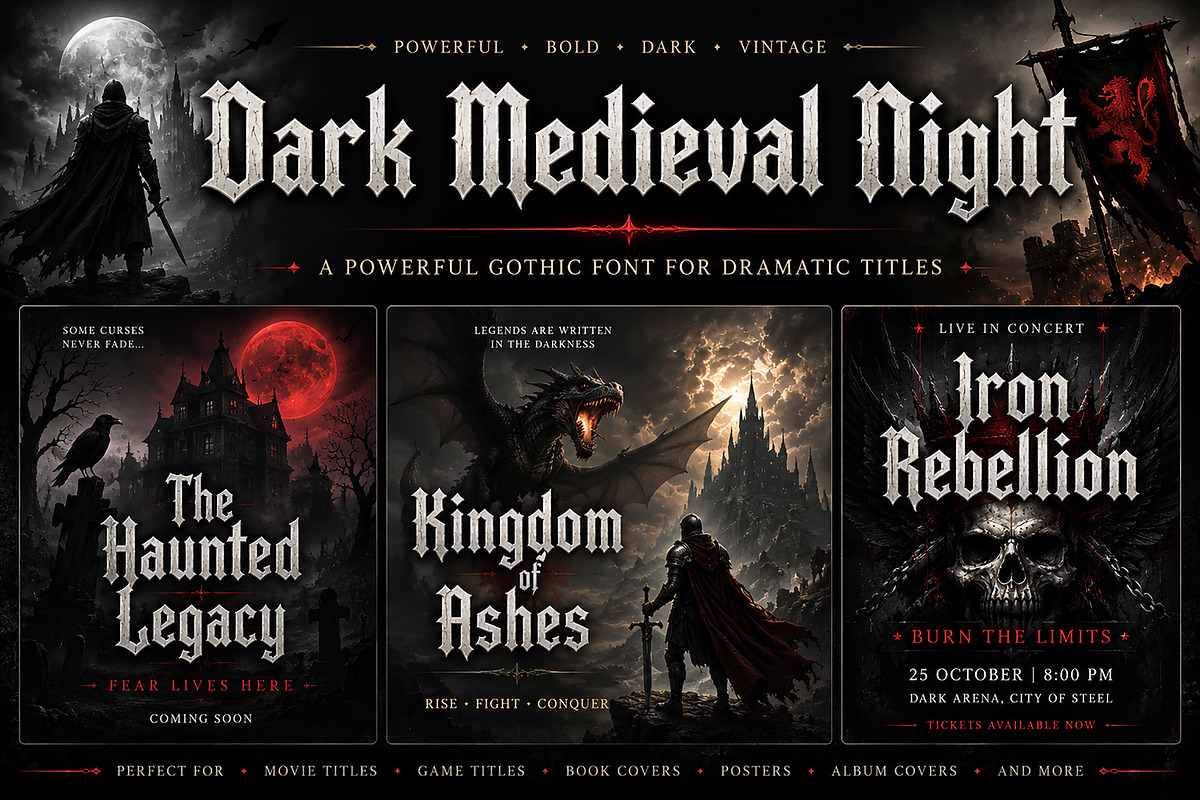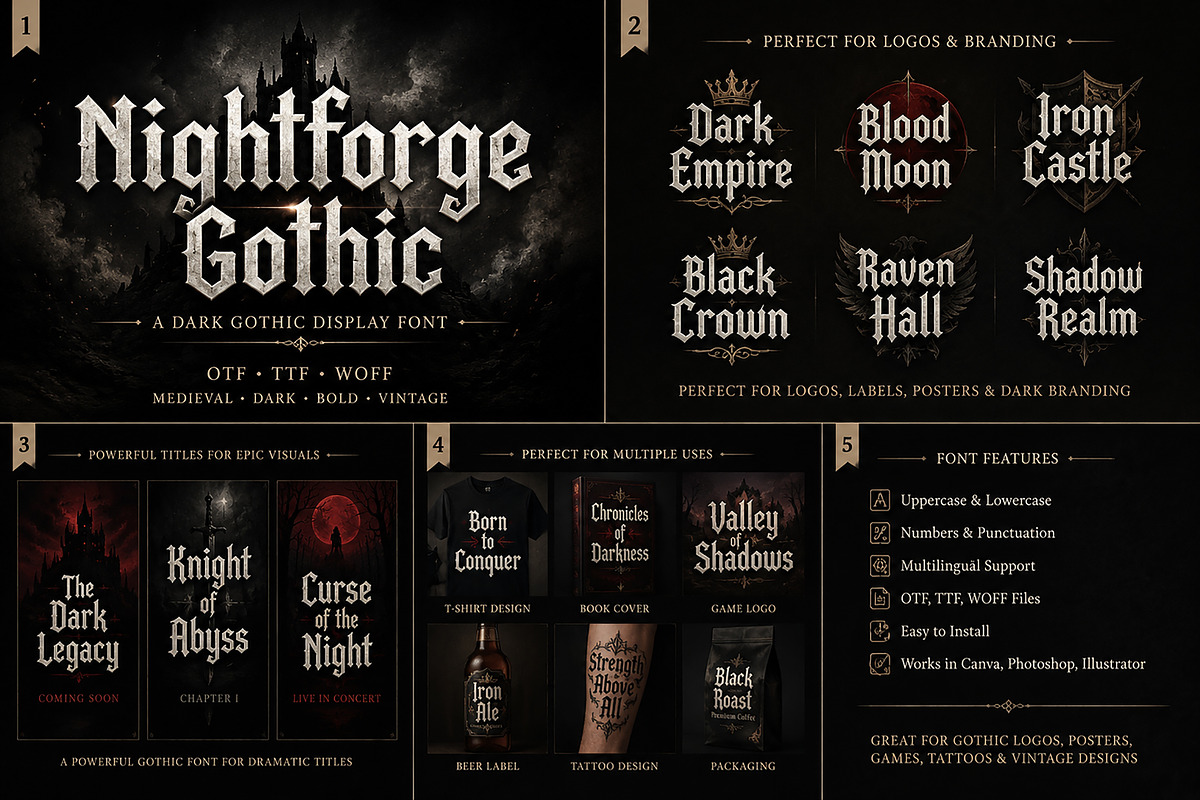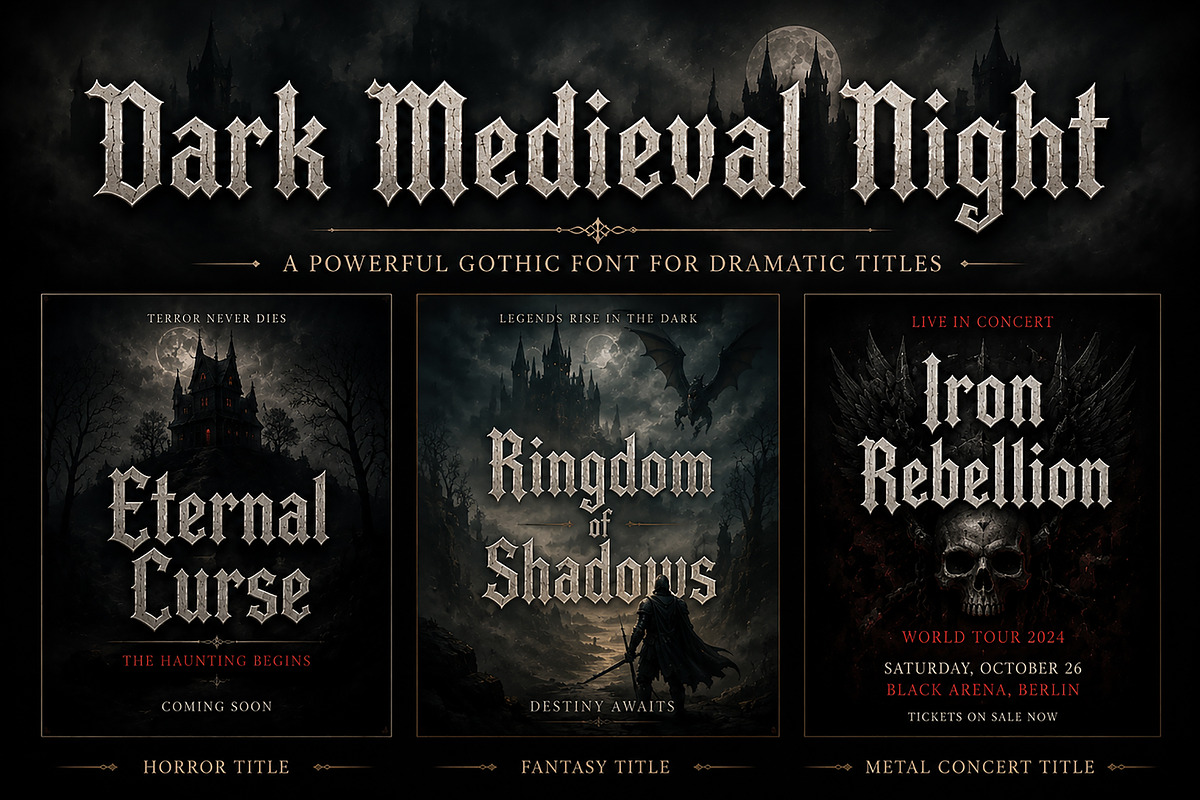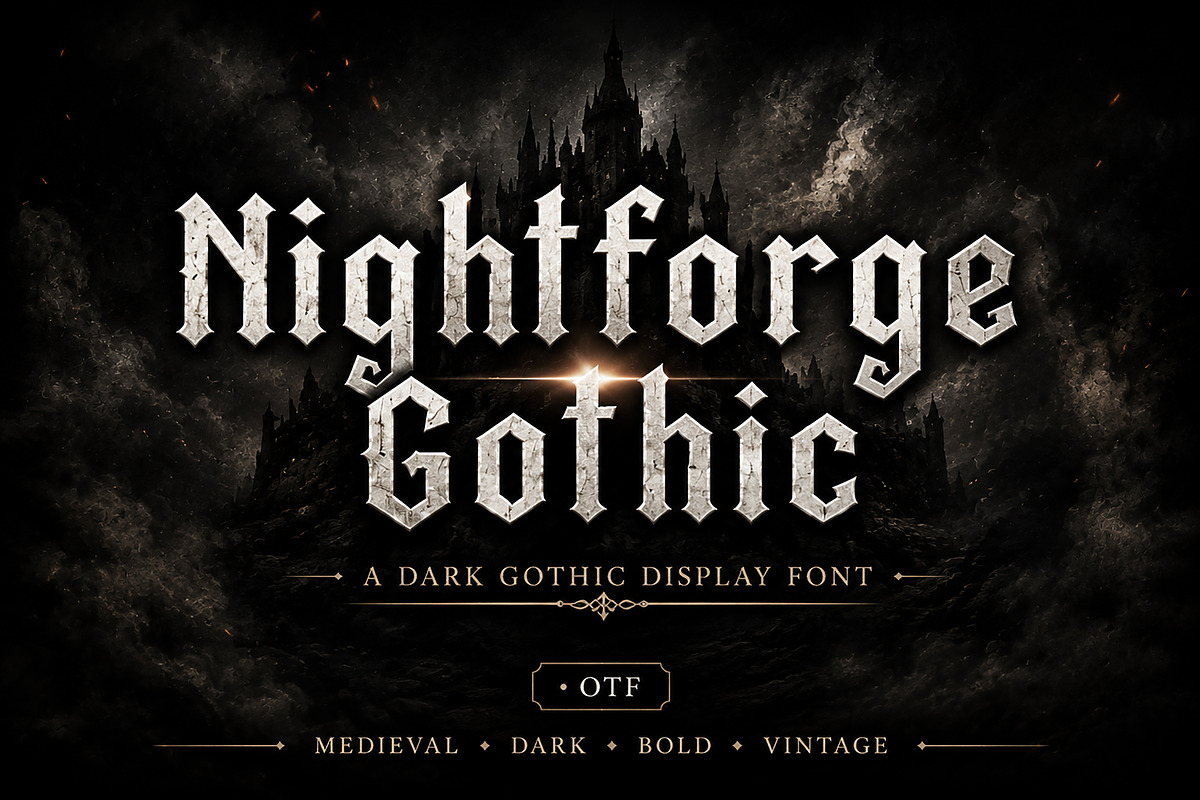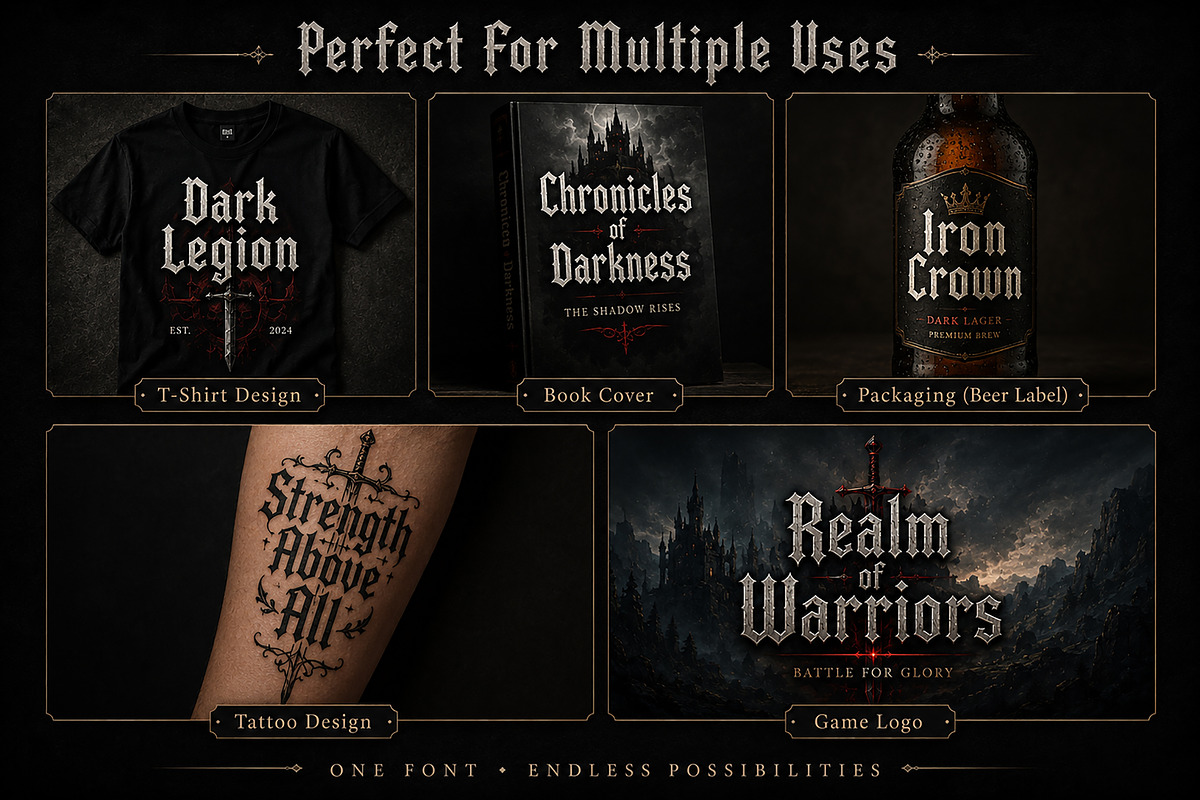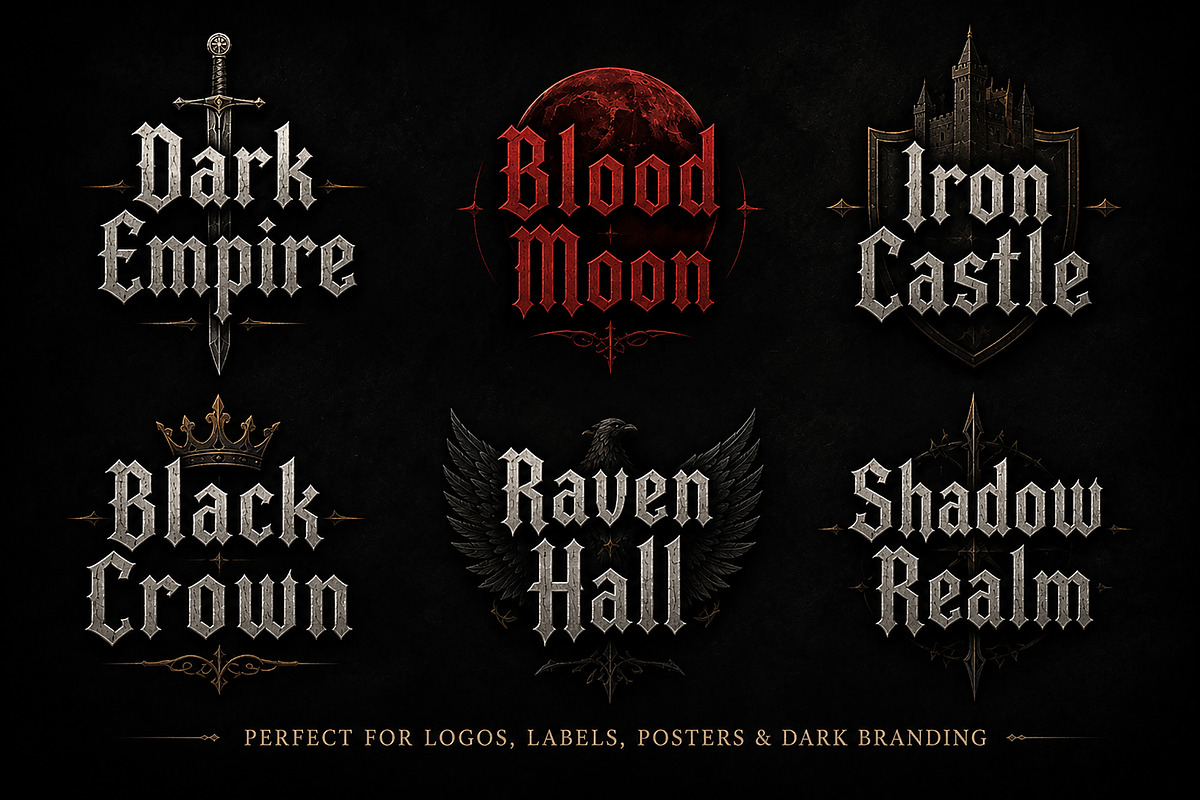
Nightforge Gothic
Nightforge Gothic is a bold and dramatic blackletter display font inspired by medieval calligraphy, gothic architecture, and dark fantasy aesthetics. With its sharp edges, powerful letterforms, and handcrafted details, this typeface is designed to create unforgettable titles, logos, and branding with a strong historical character.
Whether you're designing for horror themes, fantasy worlds, heavy metal artwork, gaming projects, medieval branding, or vintage-inspired packaging, Nightforge Gothic delivers an authentic gothic atmosphere while remaining clean, readable, and impactful.
This font is perfect for designers looking to add a timeless medieval touch to their creative work.
Logos & Branding
Horror Posters
Fantasy Titles
Medieval Designs
Heavy Metal Artwork
Album Covers
Game Logos
Tattoo Designs
Packaging & Labels
Apparel & T-Shirts
YouTube Thumbnails
Movie Titles
Event Posters
Bold Blackletter Style
Medieval Gothic Character
Strong Display Typeface
High Readability
Authentic Vintage Feel
Perfect for Large Headlines
Premium Letter Construction
Why You'll Love It
Nightforge Gothic combines the elegance of traditional blackletter typography with a modern display style, making it suitable for both classic and contemporary creative projects. Every letter is carefully crafted to deliver a powerful visual impact while maintaining excellent readability.
Create eye-catching logos, unforgettable titles, and premium branding with a font that captures the spirit of medieval legends and dark fantasy.